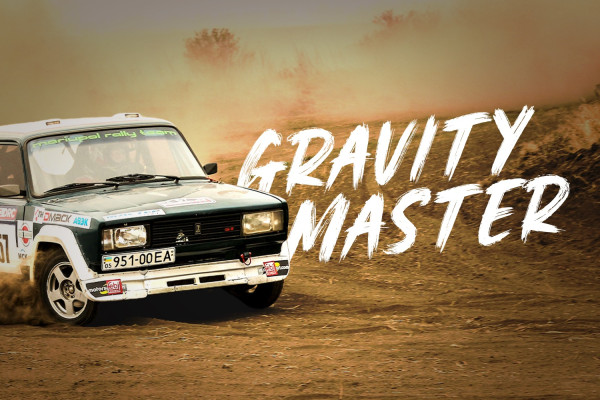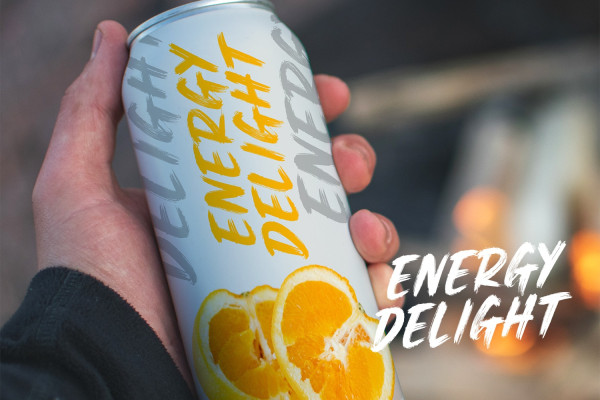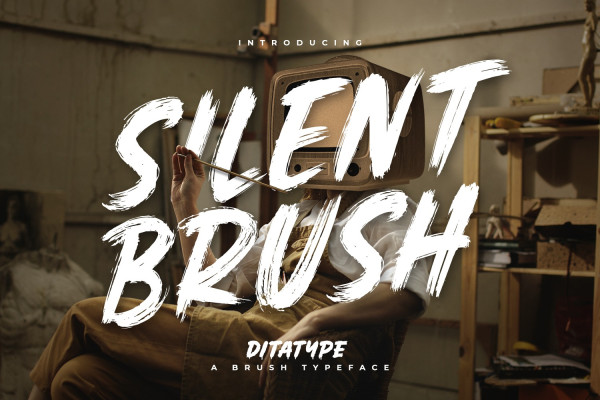
Silent Brush Typeface
Silent Brush Typeface is a very lovely, elegant script font in capital letters bigger than ordinary ones to express such dramatic, attractive visual effects. To be consistently legible and harmonious in the whole context, every letter has its own proportions.
One of the font’s main features is the brush scratch on every letter to show that the writing is made up of a paint brush producing a lot of rough textures. You can see the brush scratches along the letters’ edges and the letters’ sides to express dynamic moving flows. Despite being inspired by handwritings, this script font has gone through various adjustments making it more consistent and legible. Furthermore, it is much better to use this font for big text sizes to be more legible. In addition, you may enjoy the available features here as well.
Silent Brush fits best for any design projects requiring artistic touches such as brands’ logos, posters, merchandise designs, and other promoting media. Find out more ways to use this font by taking a look at the font preview.